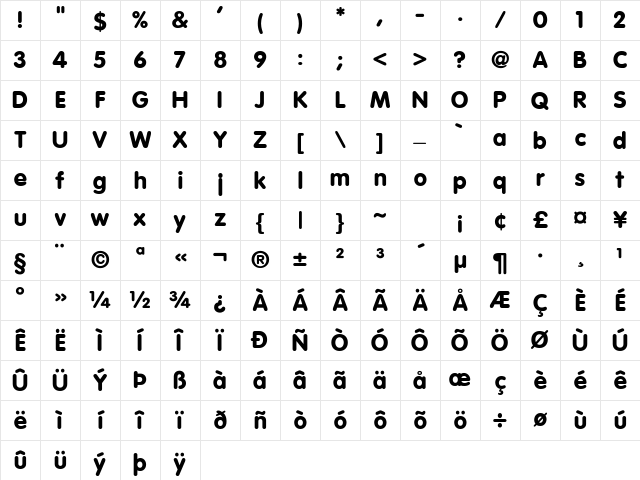
Vag-Rounded_Black Regular
Design Context for Vag-Rounded_Black
Vag-Rounded_Black softens its letterforms with rounded terminals, giving it an approachable, friendly quality that works well in consumer-facing and digital contexts.
Font Pairing: Pairs well with a rounded or humanist sans for body copy, maintaining the friendly tone without relying on Vag-Rounded_Black to carry extended reading.
Pro Tip: Use Vag-Rounded_Black for UI elements, app interfaces, and anywhere a friendly, approachable tone needs to be maintained without sacrificing clarity.